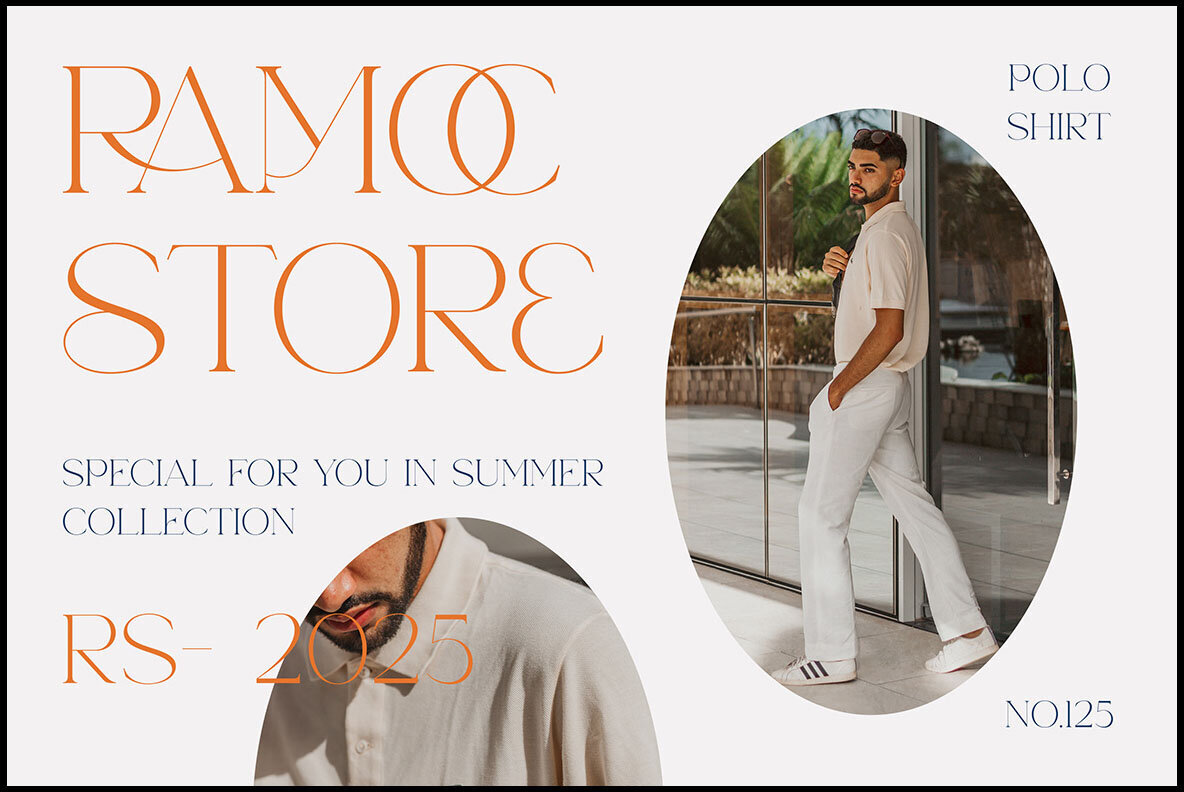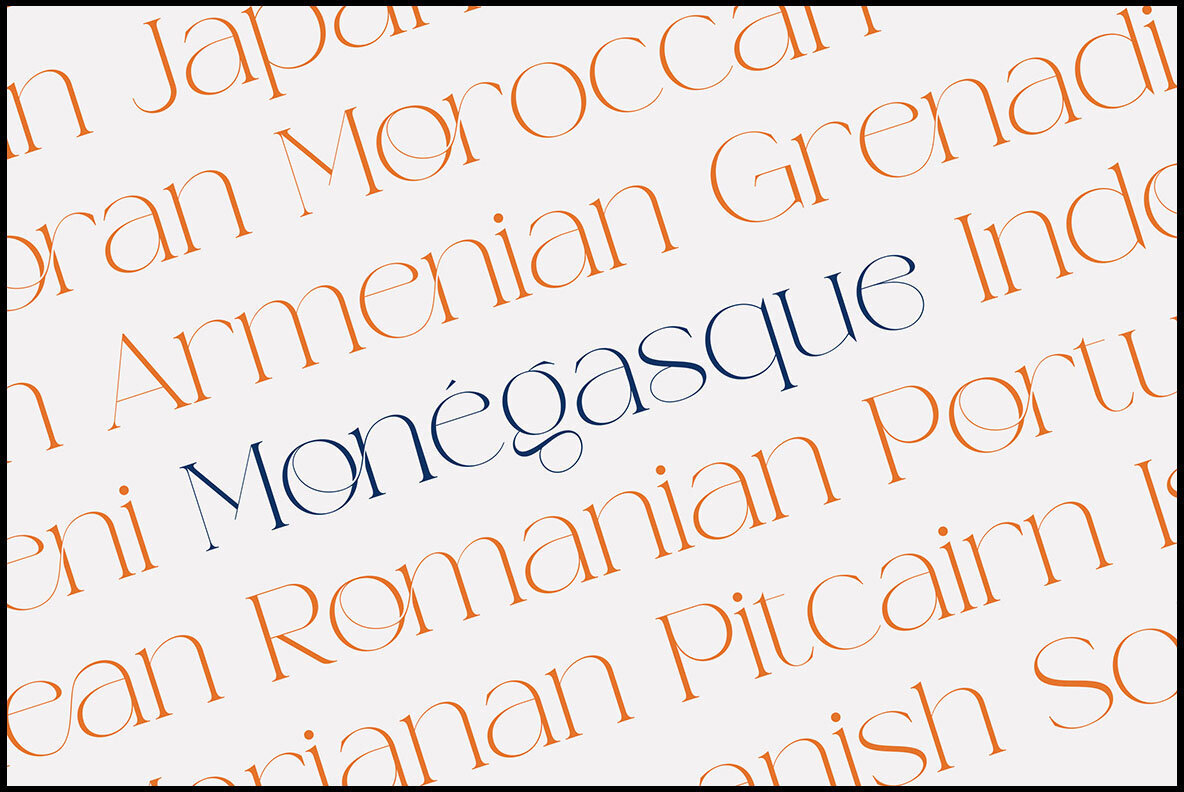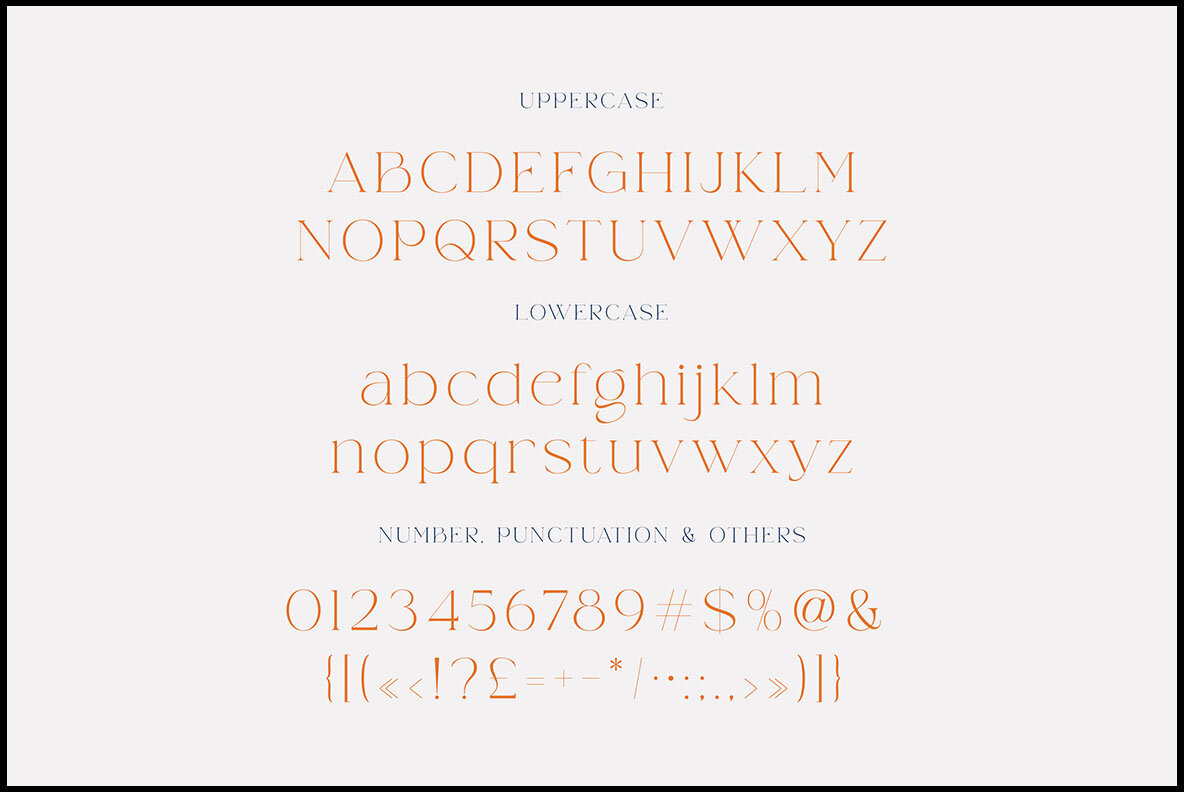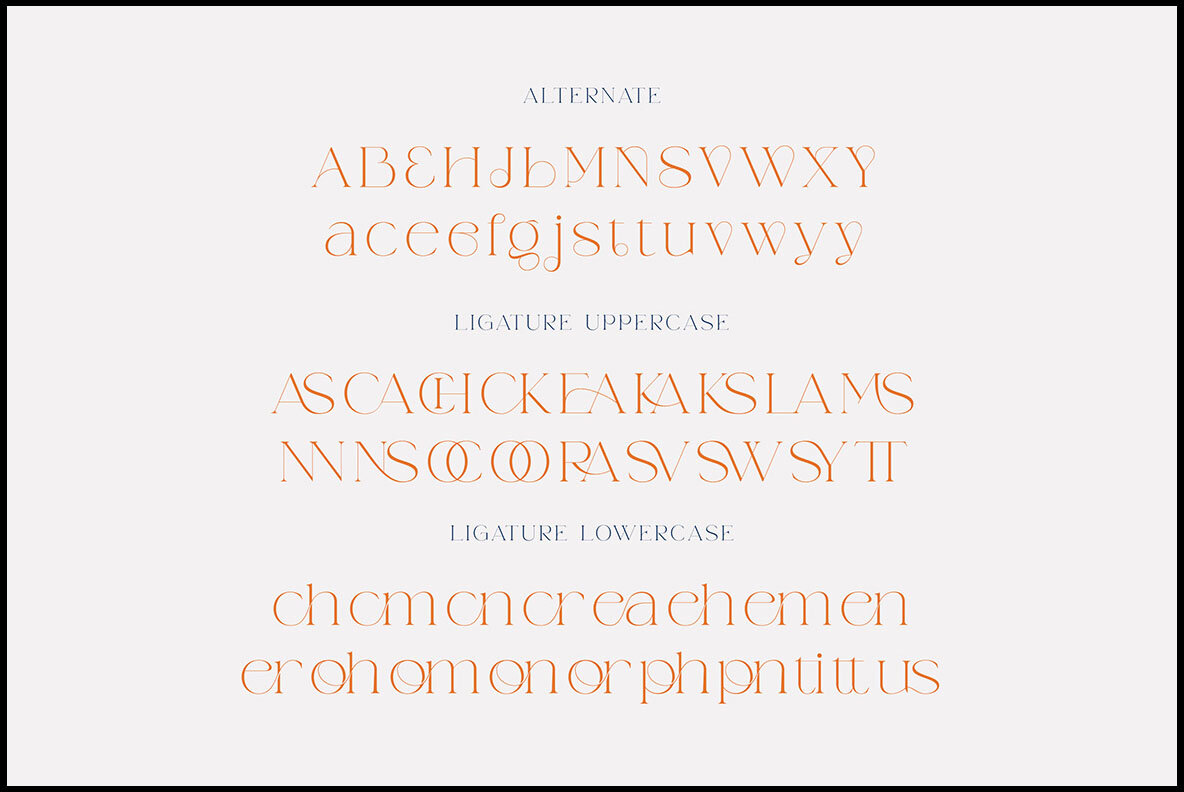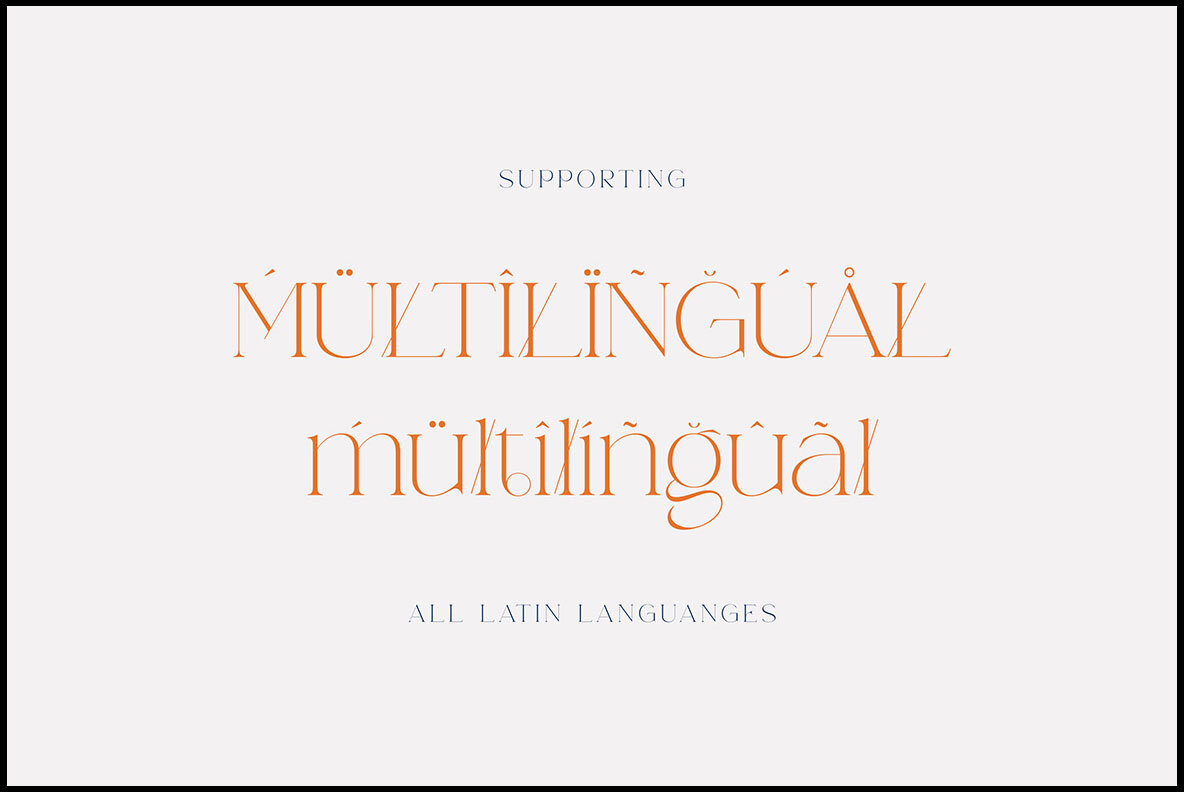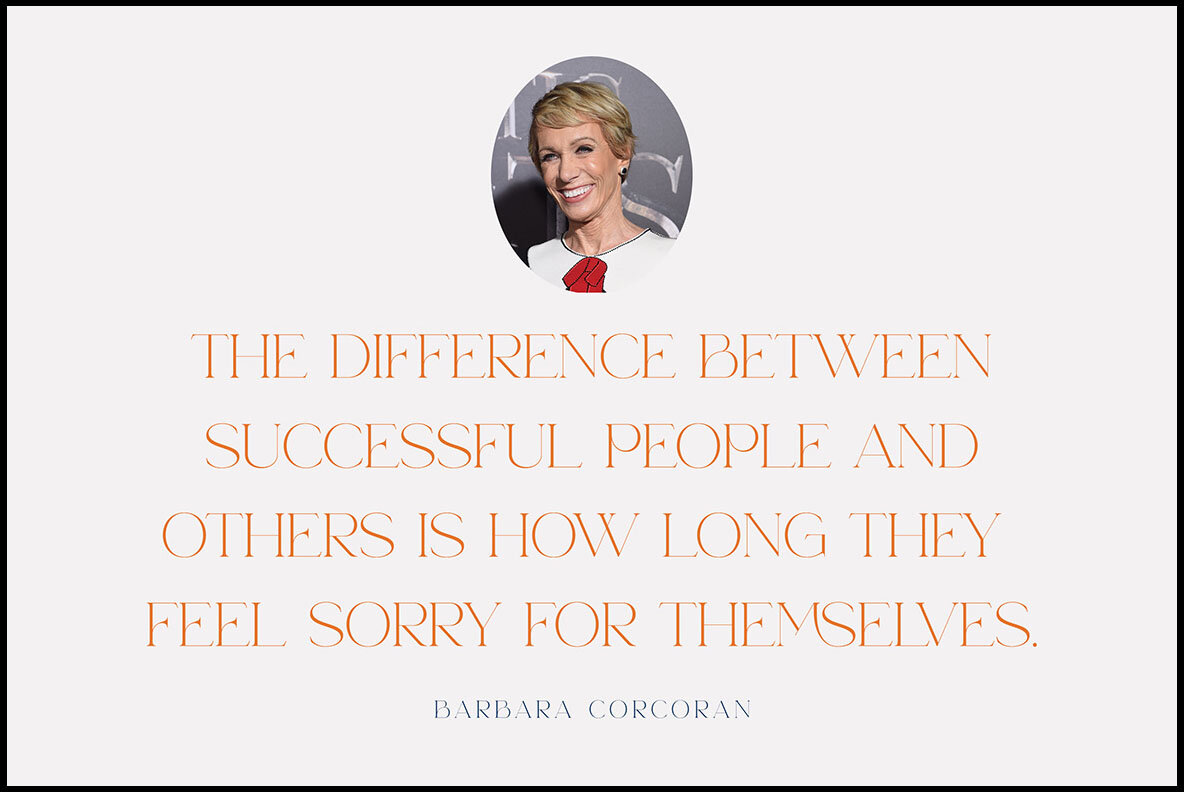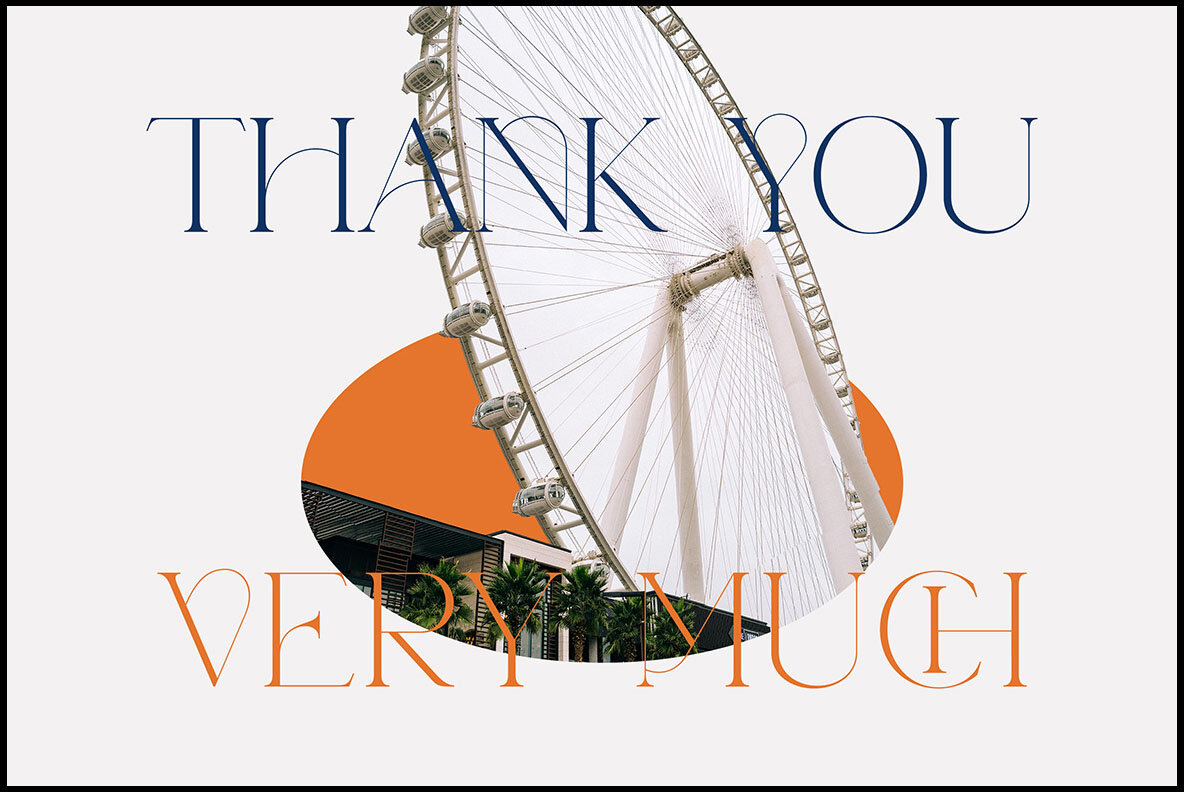
Weaser Font
Weaser Regular
Weaser by Peter Olexa is a trendy and elegant sans serif font, perfect for elevating your modern projects. With its luxurious and artistic design, Weaser brings a distinctive fashion style to any branding venture. Numerous alternates and ligatures allow for the creation of unique and original logos or website headers.Weaser: A Modern & Retro Sans Serif
Notable Features